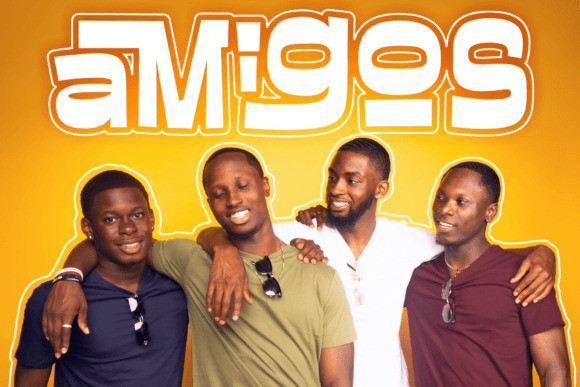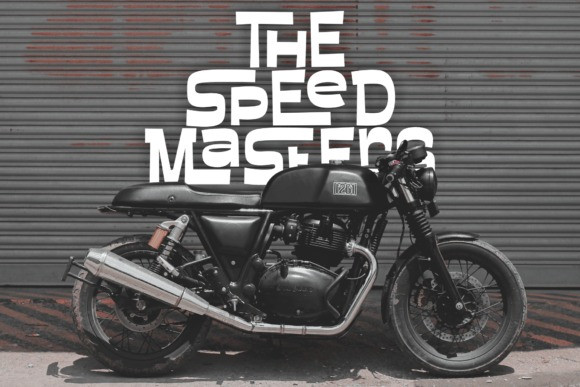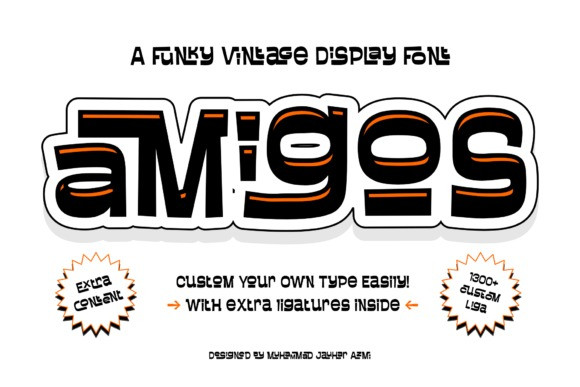
Amigos Typeface
Amigos Typeface, is a vintage retro display font. with a lot of ligatures, it could be a nice font for lettering design, typography design, logotype and many more. Create custom logotype could be easier with Amigos Font.